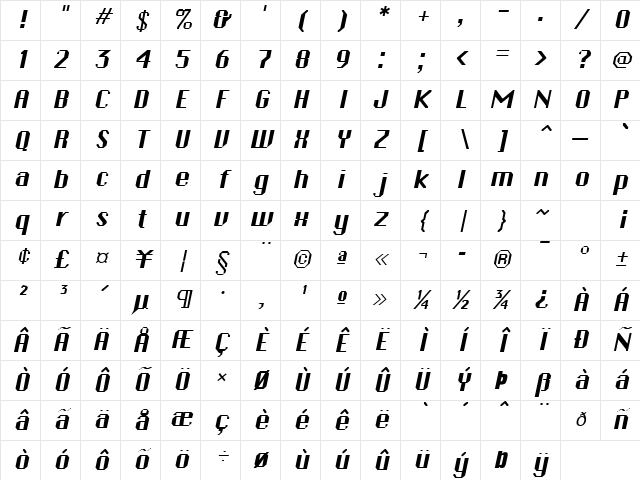
Ambush-Extended Italic
Design Context for Ambush-Extended
Ambush-Extended is a composed and adaptable typeface that performs quietly and consistently across a wide range of design contexts. The slanted form adds forward momentum and visual energy.
Pro Tip: Use Ambush-Extended for emphasis, pull quotes, and subheadings where its slanted energy can add rhythm to the layout.